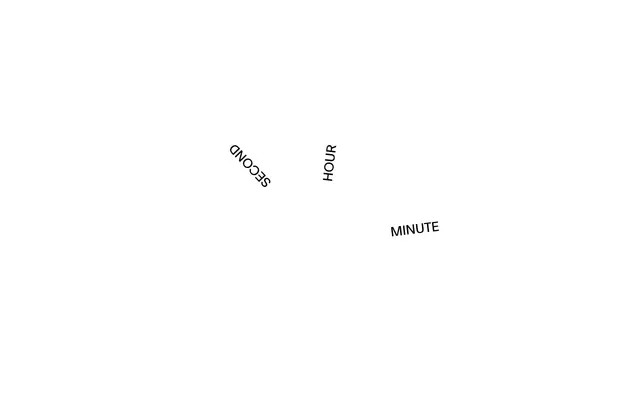
Calhern Condensed
A condensed grotesque running 26 styles across 13 weights, from Hairline to Black, with a companion Skeleton cut.
The family spans an unusually broad weight range, from Hairline and Ultrathin through to Heavy and Black, each with a matching italic. A Skeleton weight adds an outline variant at the extreme end of the range. Calhern Condensed sits alongside a Wide companion under the broader Calhern family, making it suited to editorial hierarchies, poster work and identity systems that need tightly fitted letterforms across a wide tonal range.
Calhern Condensed is a condensed grotesque sans-serif with a wide weight range from Hairline to Black, including a Skeleton variant. Its upright, tightly fitted letterforms and extensive weight range place it firmly in the grotesque tradition.